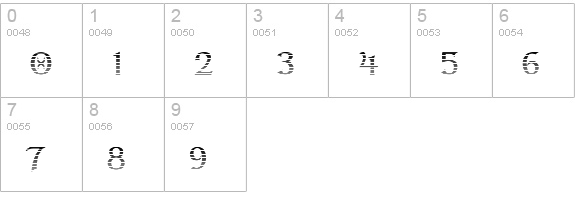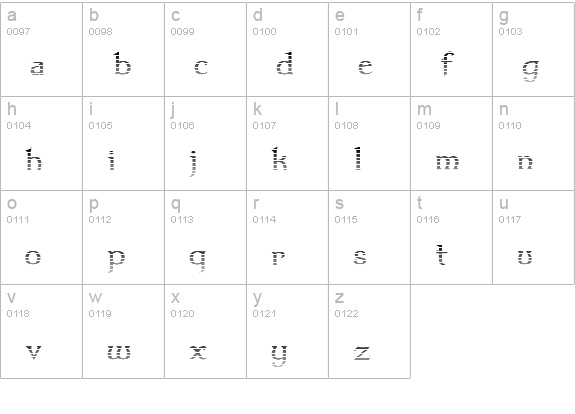
Dumbledor 1 Cut Up Font Details
Dumbledor 1 Cut Up font is a unique and eye-catching display typeface that exudes a sense of creativity and modernity. With its playful and fragmented letterforms, this font is perfect for adding a touch of whimsy and originality to your designs. The irregular cuts and sharp edges give Dumbledor 1 Cut Up font a dynamic and energetic look that is sure to make your text stand out. This font is freely available to download at FontsMarket.com, making it easy for designers and creatives to access and incorporate into their projects. Whether you're working on a poster, logo, website, or any other design project, Dumbledor 1 Cut Up font is a versatile and engaging choice that will bring a fresh and contemporary feel to your work. Let your creativity run wild with this free and captivating font!